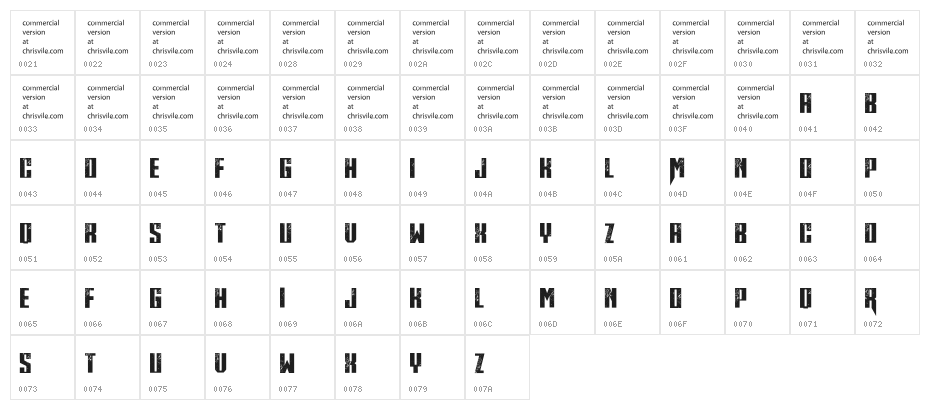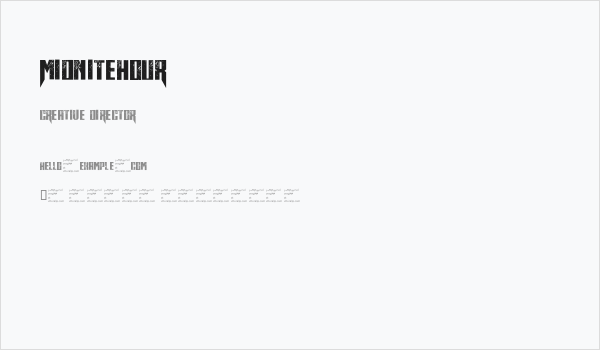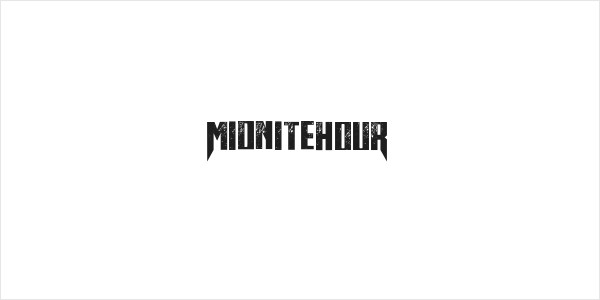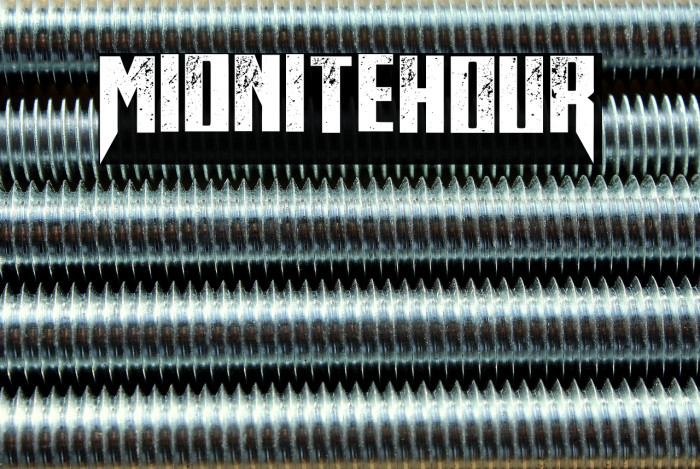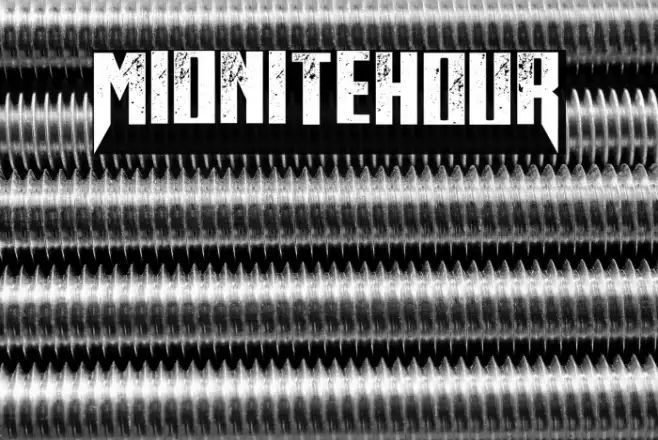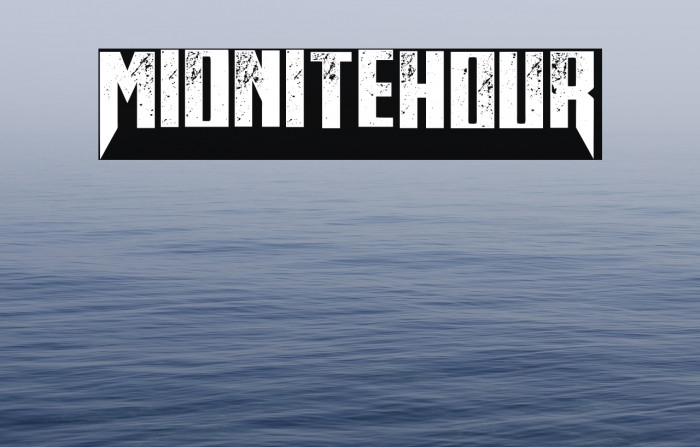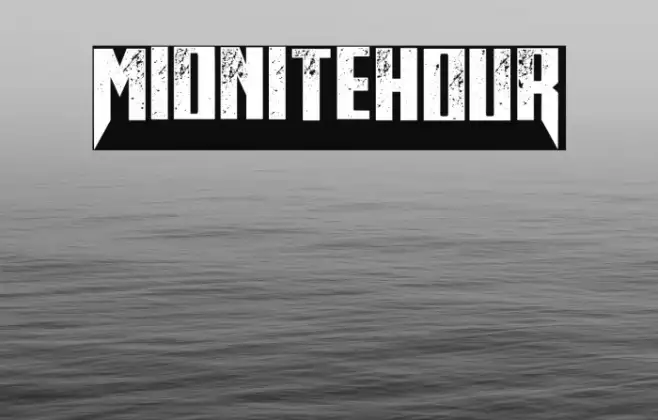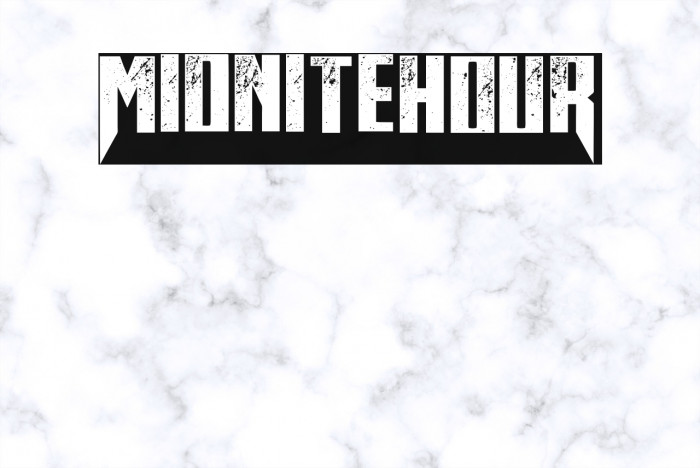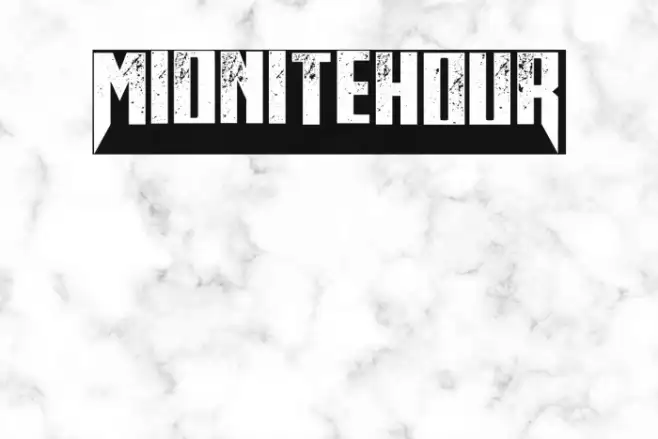
MidniteHour Font
MidniteHour Description
This font features a bold, distressed style with a modern, edgy appearance. The uppercase letters are designed with sharp angles and a slightly futuristic look, giving them a strong presence. The distressed texture adds a rugged, worn effect, making it suitable for projects that require a gritty or urban aesthetic. The characters are evenly spaced, ensuring readability while maintaining a unique style. This font is ideal for creating impactful headlines, posters, and logos that need to stand out with a bold statement.
| Overall Style | Modern, Edgy |
| Proposed Projects | Ideal for posters, album covers, video game titles, and branding projects that require a strong, gritty aesthetic. |